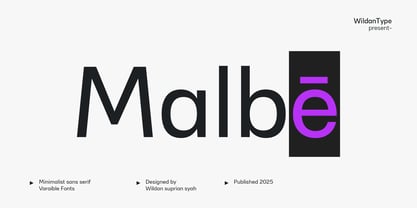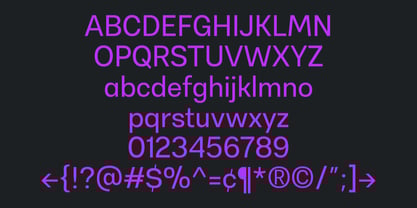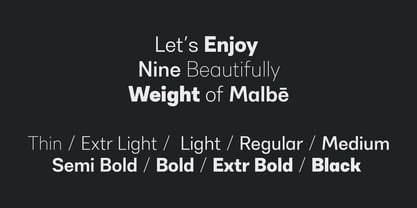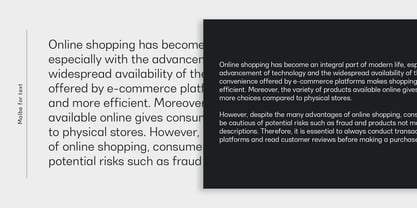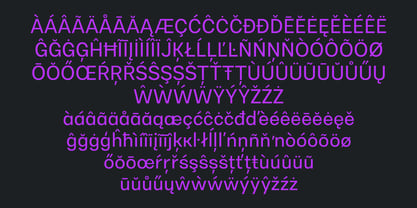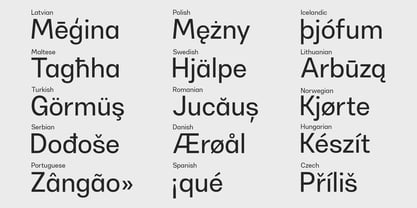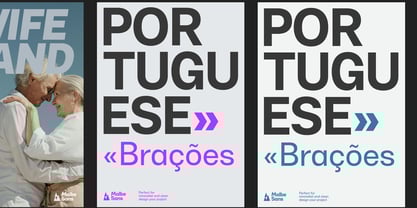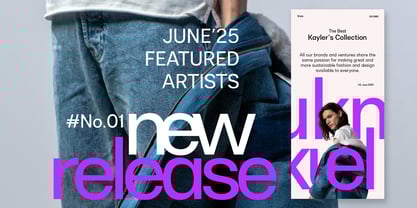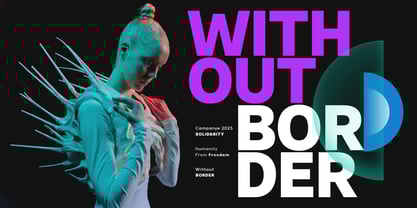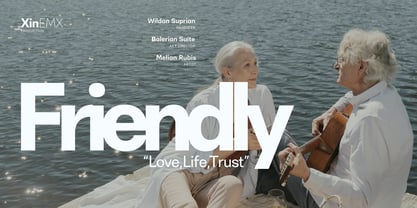
Malbe
by Wildan Type
The Malbe Font Family was designed by Wildan Suprian Syah and published by Wildan Type. Malbe contains 18 styles and family package options. More about this family
Malbe is a minimalist sans serif fonts that combines a clean and soft style. As its name suggests, this font is designed to convey a simple and memorable impression.
With elegant lines and a modern personality, this font is capable of providing a broader experience for its users. Malbe offers flexibility for various needs, from magazines, news, websites, applications, posters, branding, to headlines and titles.
Malbe provides 9 weights fonts and oblique style in each thickness, as well as multilingual support for many languages, making this font very worthy to be included in your font collection.